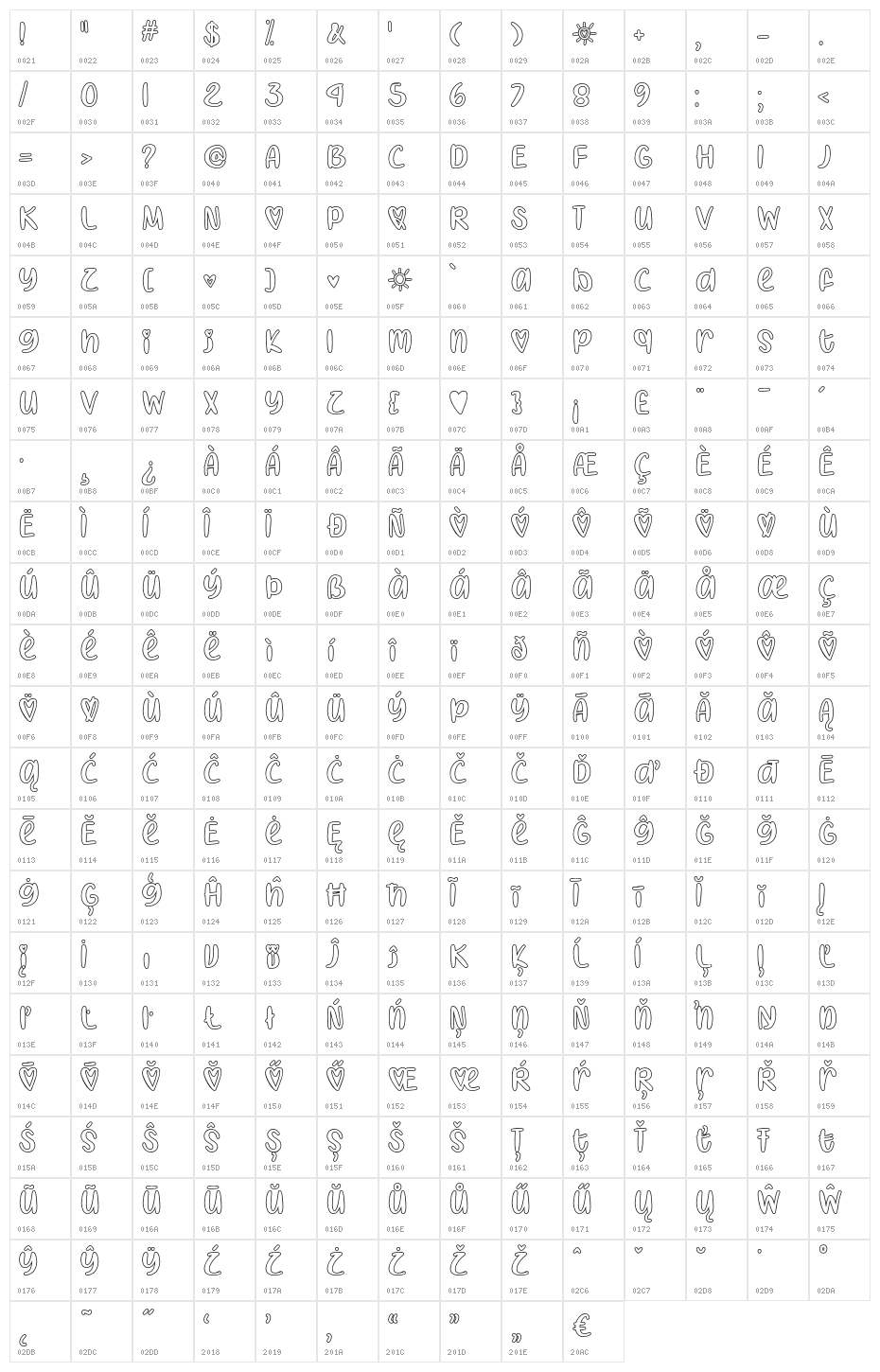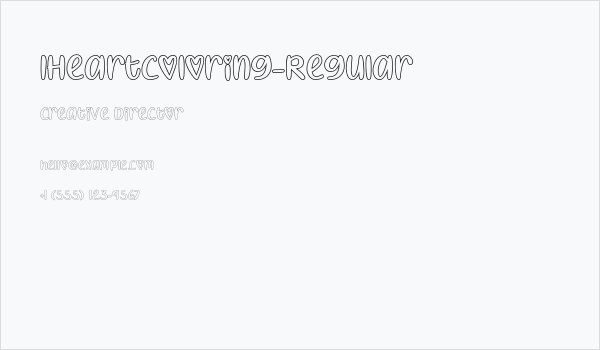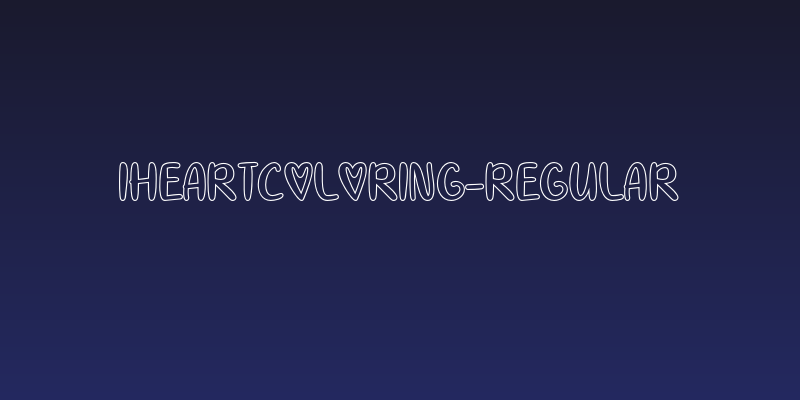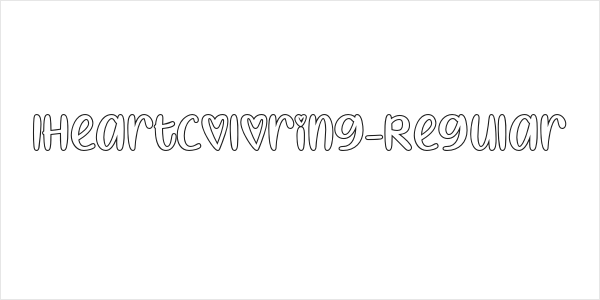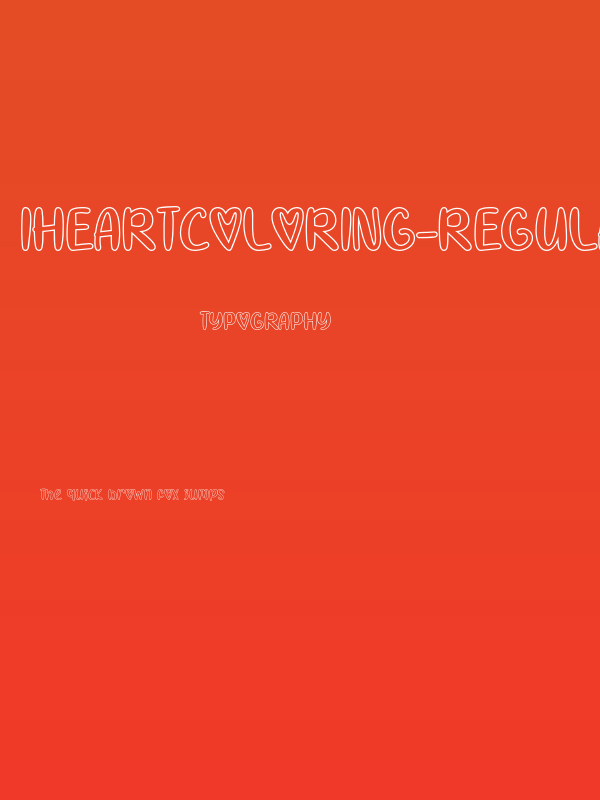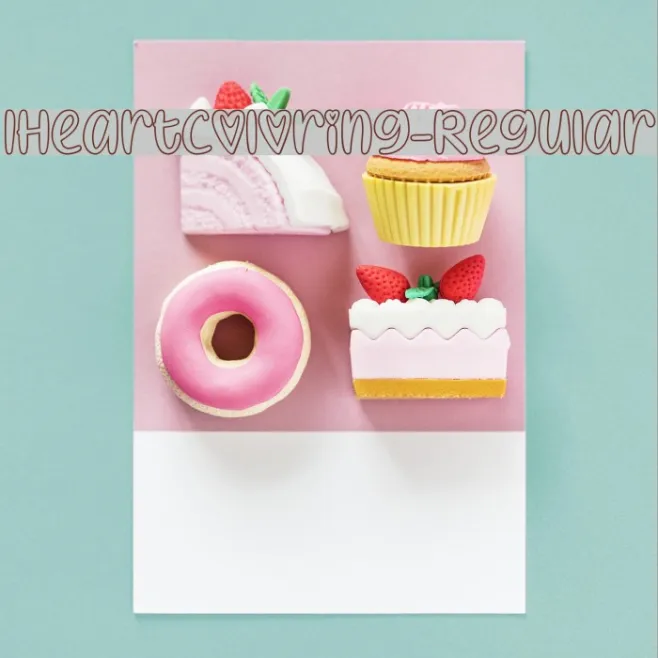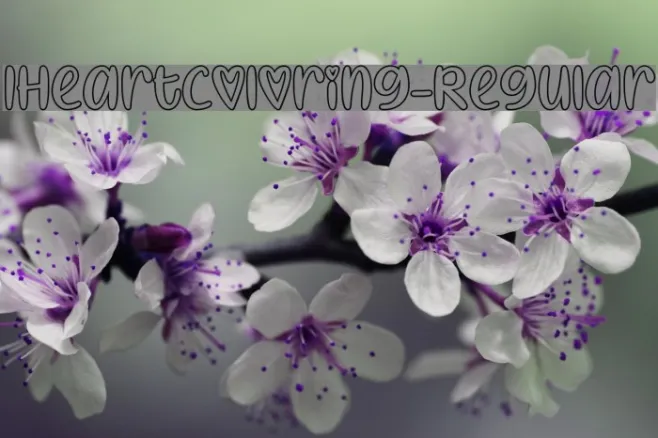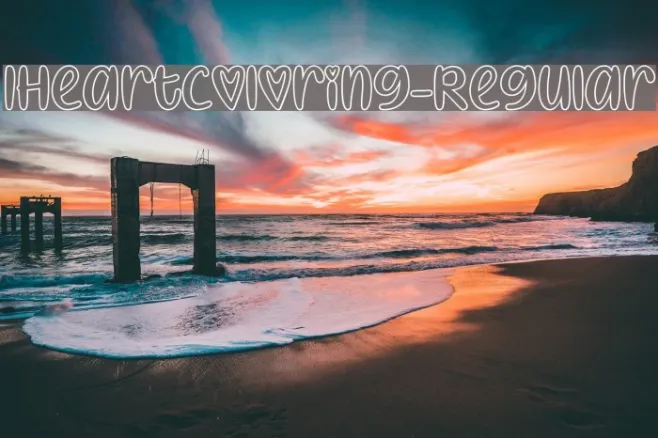
IHeartColoring-Regular Font
IHeartColoring-Regular Description
This playful and decorative font features a whimsical, hand-drawn style with hollow, bubble-like characters. The uppercase and lowercase letters are rounded and bold, with some characters incorporating heart shapes, adding a touch of charm and uniqueness. The numbers and special characters maintain the same playful aesthetic, making it suitable for creative and fun projects. The font's design is consistent, with smooth curves and a friendly appearance, ideal for capturing attention and conveying a lighthearted tone.
| Proposed Projects | Ideal for children's books, greeting cards, playful branding, and DIY crafts. |